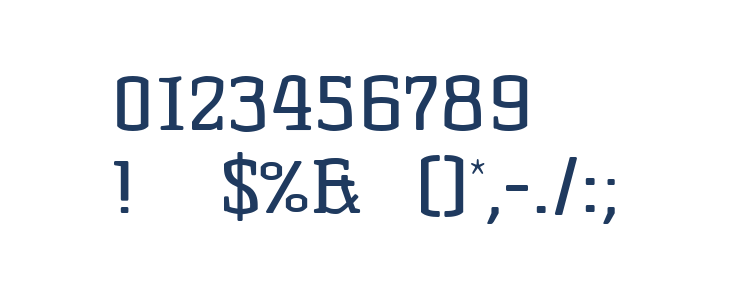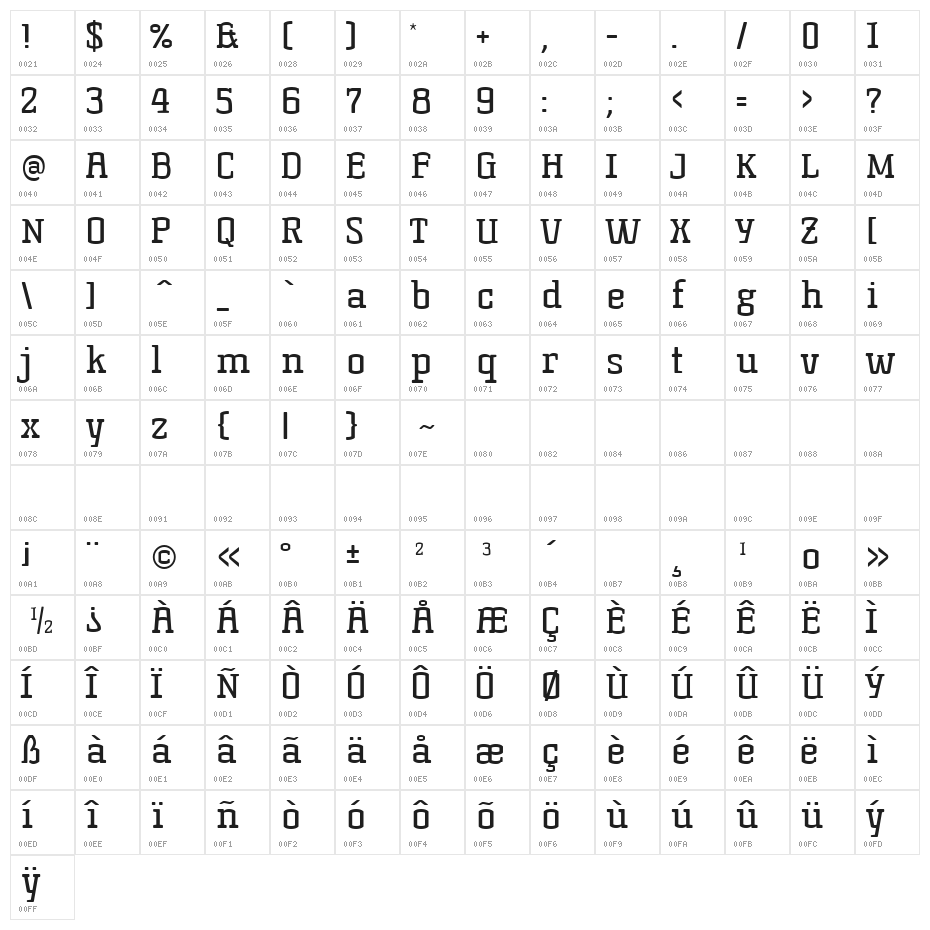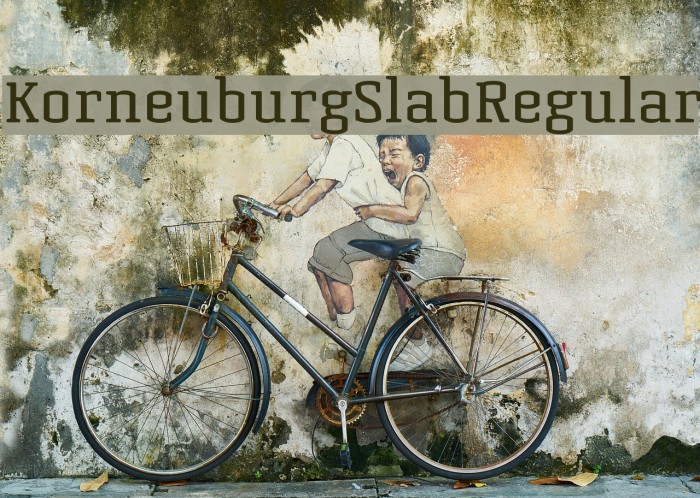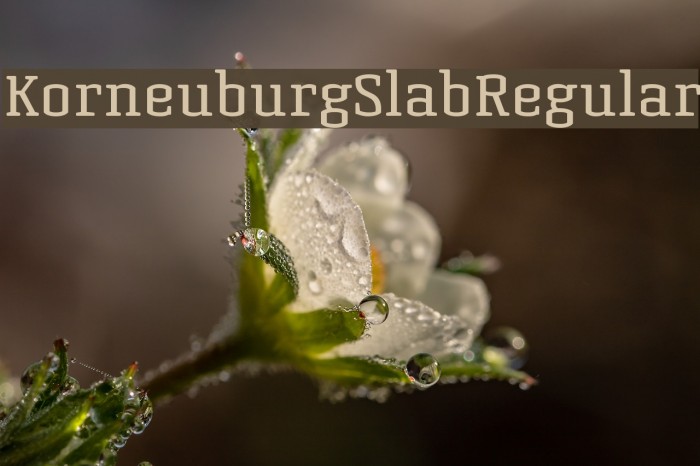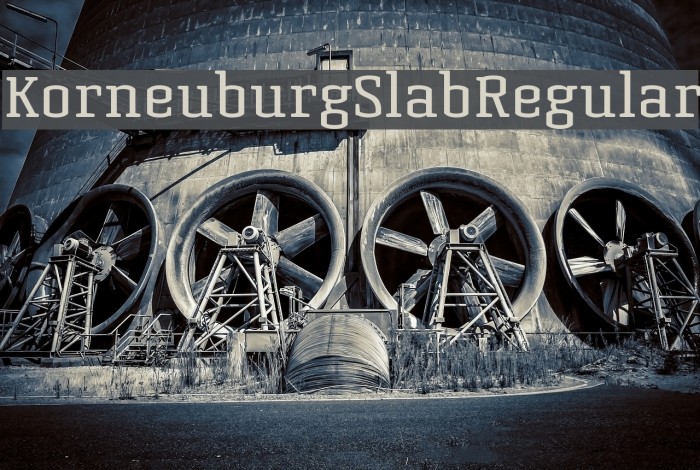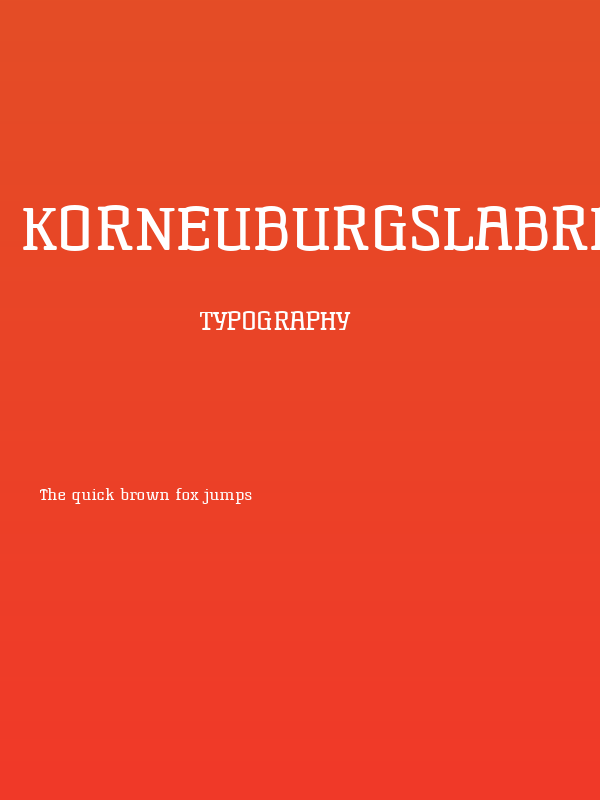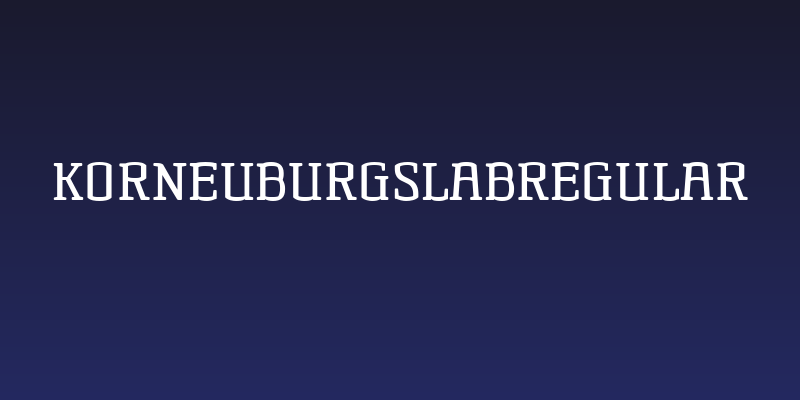
KorneuburgSlabRegular Font
KorneuburgSlabRegular Description
This font features a robust and structured design with a slab serif style, characterized by thick, block-like serifs. The uppercase letters exhibit a strong presence, while the lowercase letters maintain a consistent weight, offering a balanced and harmonious appearance. The numerals are clear and easily distinguishable, making them suitable for various applications. The special characters are well-integrated, maintaining the overall aesthetic. This font's design is both modern and timeless, suitable for a wide range of uses.
| Use Case | Headlines, Logos, Editorial design |
| Proposed Projects | Ideal for branding, headlines, posters, and editorial design where a strong, classic presence is desired. |